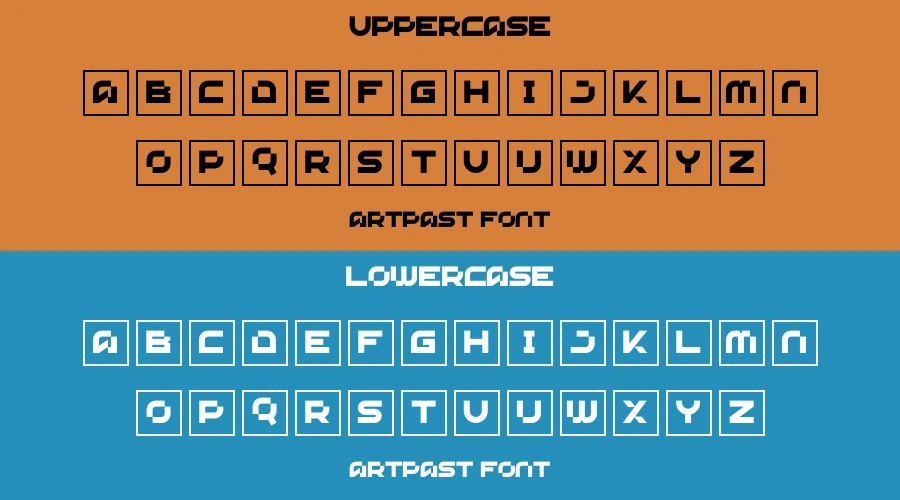
About Artpast Font
Artpast Font represents a sophisticated approach to type design, balancing subtle details with brand presence. Perfect for logo design, this font family showcases impressive refinement and practical utility throughout its character set. Designers appreciate its versatility and reliability.
Designers will appreciate nuanced touches including balanced weights and swash characters, adding sophistication to any project. These features become apparent in colophons, where body text reading matters most. The careful treatment of joint construction and market positioning ensures optimal performance.